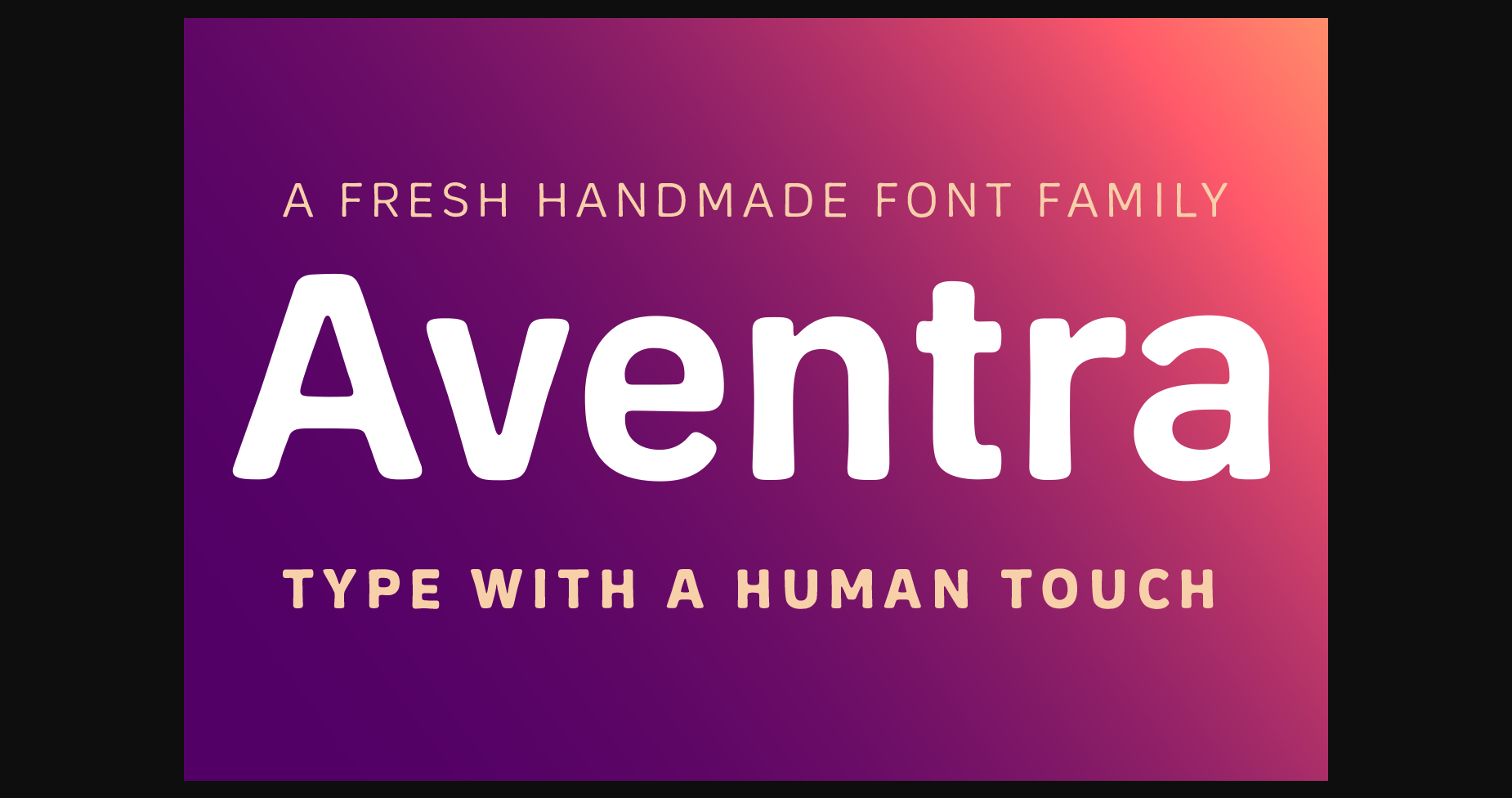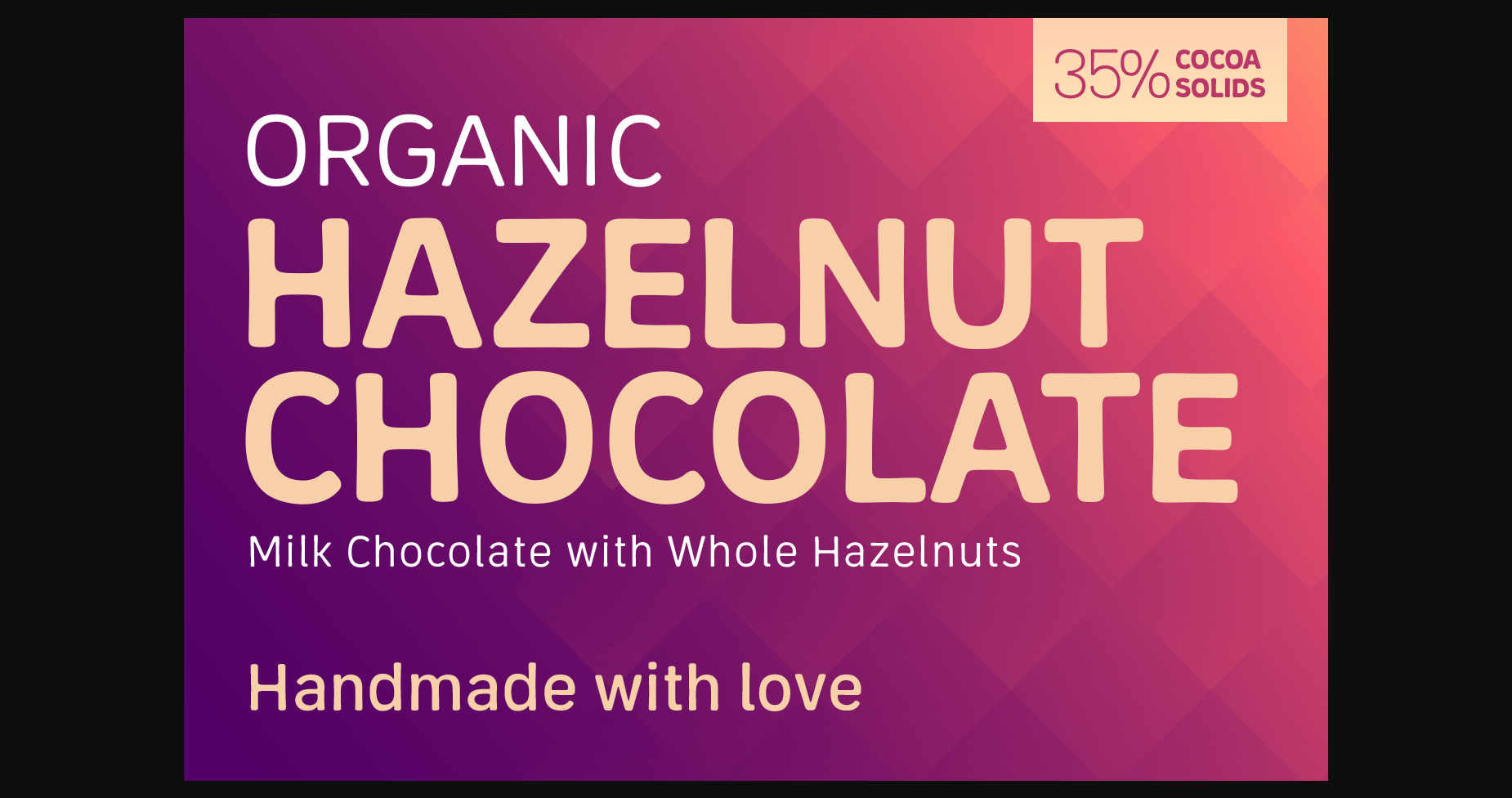
About Aventra Font
Aventra is a handmade organic sans serif typeface family. With curved edges and slightly uneven lines, it has a warm and friendly appeal. Its clean and minimal design makes it legibility and readable even in smaller point sizes. With a distinct and informal human touch, it is ideal for packaging, branding, display, posters, logos, advertising, signage and editorial design.